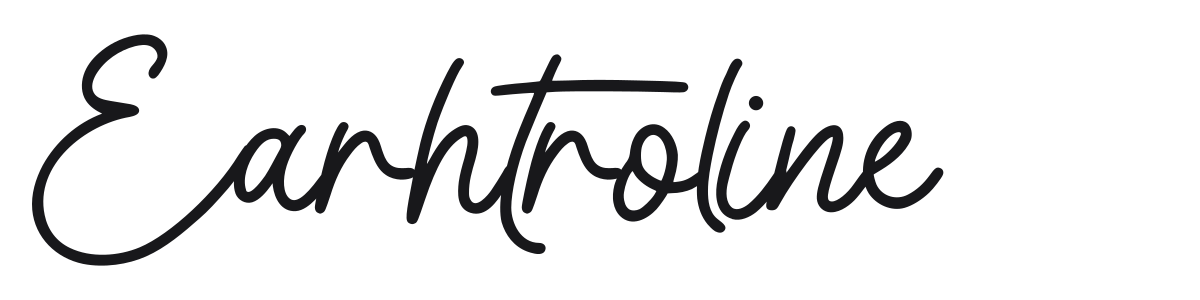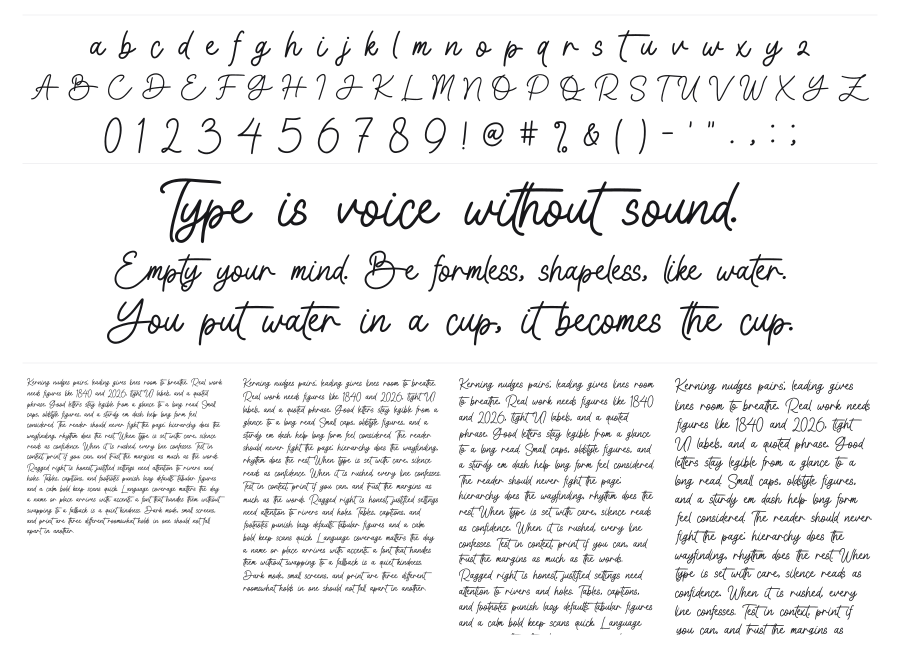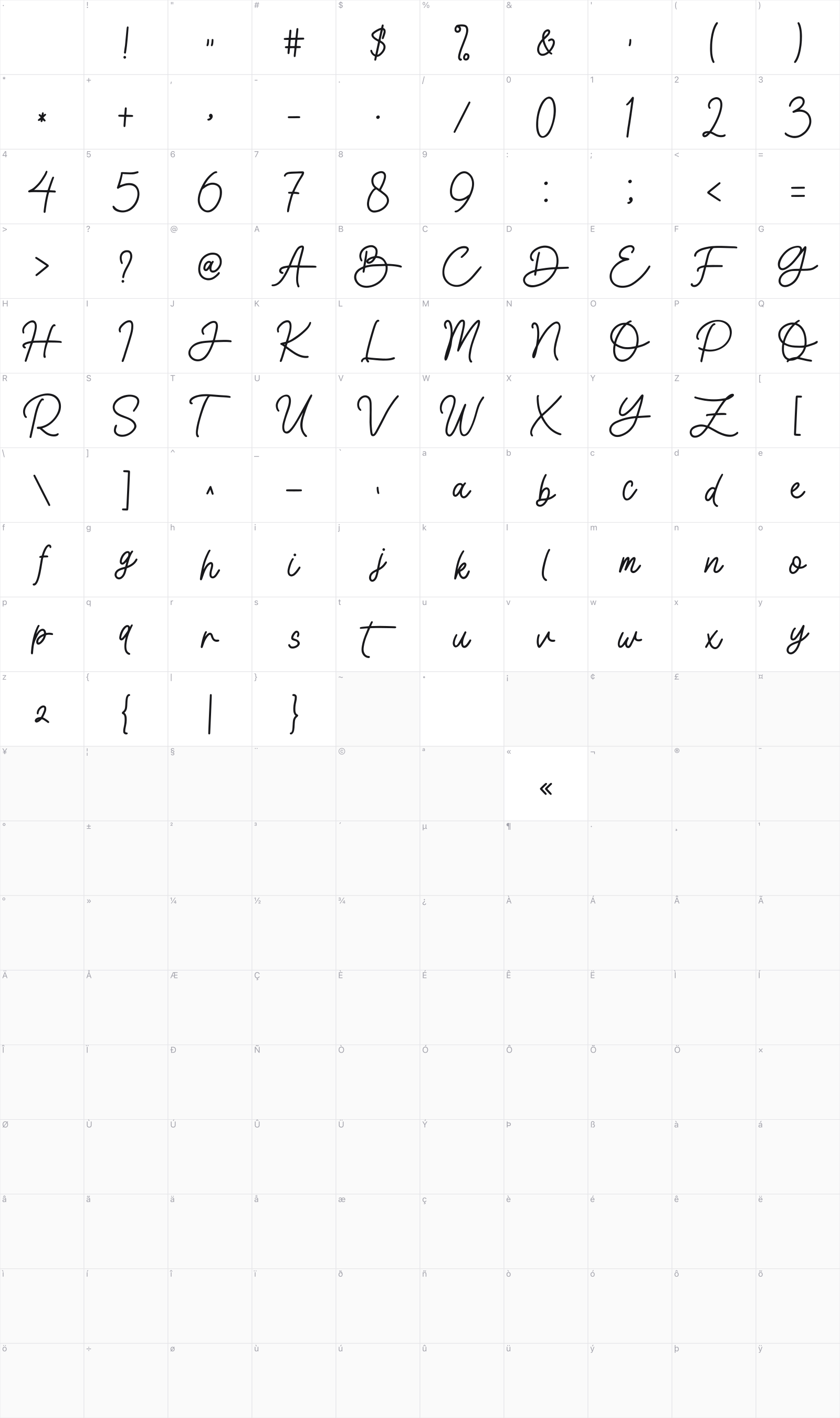
Earhtroline
Earhtroline is a casual connected script with a relaxed handwritten feel and smooth flowing strokes. The near-monoweight line and looping joins give it an everyday naturalness without feeling sloppy. It works well for branding and packaging where a personal, approachable tone is the goal.